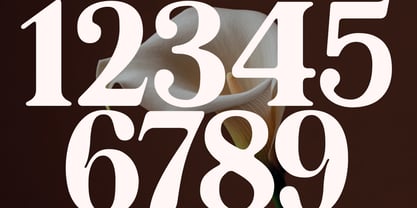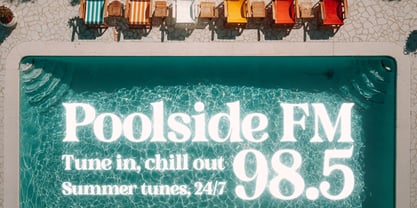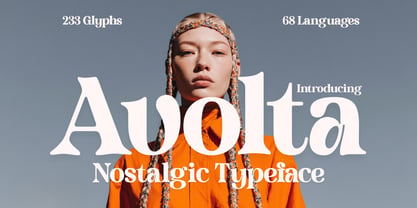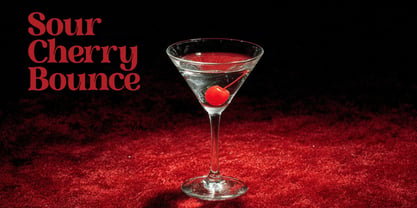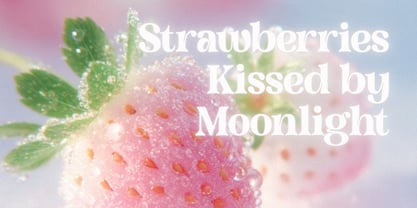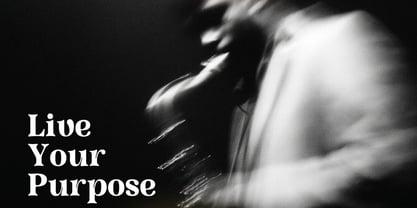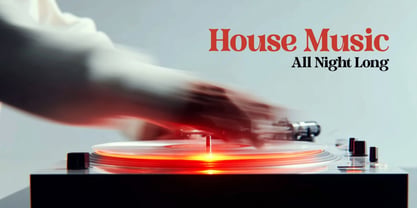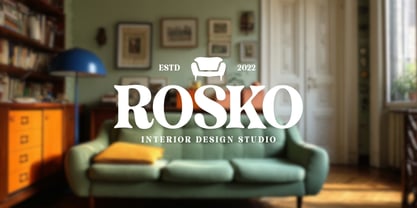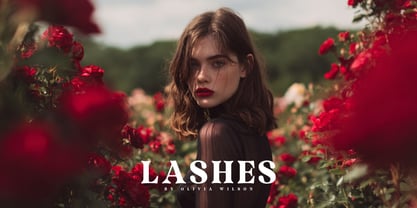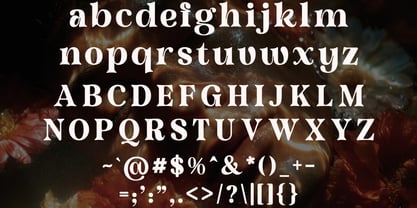
Avolta
by Hipfonts
The Avolta Font Family was designed by Igor Ovsyannykov and published by Hipfonts. Avolta contains 1 styles. More about this family
Step back in style with Avolta, a bold serif typeface that captures the golden soul of the 1960s and 70s with effortless grace. Designed with refined ink traps, high contrast, and a commanding presence, Avolta blends vintage charm with modern luxury, perfect for those who crave elegance with a retro twist. Whether you're crafting editorial headlines, branding with confidence, or evoking emotion through nostalgic packaging, Avolta delivers unforgettable impact. Its classy curves and striking serifs draw the eye and hold it there, making it your go-to choice for magazines, fashion campaigns, logos, and high-end design. Gorgeous. Nostalgic. Unapologetically bold. Let Avolta bring timeless sophistication to your work.
Designers: Igor Ovsyannykov
Foundry: Hipfonts